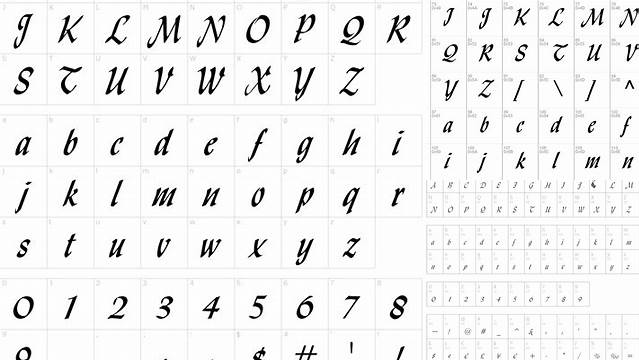
Hey guys! Let's dive into the amazing world of typography and explore a real gem: the Lydian Cursive CE font. This article is your ultimate guide to everything about this beautiful typeface, from a free download to how to use it, and all the cool details you might be wondering about. If you're looking for a font that blends elegance, readability, and a touch of personality, you're in the right place. Get ready to unleash your creativity with the Lydian Cursive CE font!
H2: The Beauty and Characteristics of Lydian Cursive CE
Now that you know where to grab your free Lydian Cursive CE font download, let's explore what makes this font so special. Lydian Cursive CE is all about elegant flow and graceful curves. The font has a handwritten feel, but it's still incredibly readable, making it perfect for a variety of design applications. The cursive style gives it a sense of sophistication and personality that can be hard to achieve with more basic fonts. You'll notice the distinctive letterforms, with their interconnected strokes and the gentle slant, which creates a natural, inviting look. This is a typeface that can add a touch of class to invitations, logos, headings, and more. One of the great things about the Lydian Cursive CE font is its versatility. It can be used in both formal and informal settings. It can also be paired with different styles of other fonts. For instance, pairing a bold, sans-serif font with the elegant Lydian Cursive CE in headlines can create a striking visual contrast. The font's flowing design is also ideal for body text in certain contexts, particularly when aiming for a more artistic or personalized touch. However, keep in mind that cursive fonts, including Lydian Cursive CE, can sometimes be a bit challenging for very long passages of text, depending on the design's use case. When choosing a font, consider how it will appear in different sizes and how it will integrate with the rest of your design. The Lydian Cursive CE font's elegant appearance can give your design projects a touch of sophistication and personality, setting them apart from the crowd.
H2: Lydian Cursive CE Font: Perfect Uses and Design Ideas
So, where does the Lydian Cursive CE font really shine? Let's explore some perfect use cases and design ideas for this awesome font. This typeface is a fantastic choice for wedding invitations and announcements, adding a touch of elegance and romance. Imagine your wedding invitations with the names and dates written in this graceful script – it's a classic and beautiful touch! It also works wonders for creating logos for brands that want to convey sophistication, luxury, or a personal touch. Think of boutique businesses, handmade crafts, or any brand that wants to project an image of refined taste. Lydian Cursive CE can also be used for headings and titles in brochures, flyers, and websites. It can instantly elevate the look of your content and grab the reader's attention. It is a fantastic choice for creating stylish packaging or labeling. Think about product labels for candles, soaps, or gourmet foods, where the cursive style can add a sense of artistry and charm. To create visually appealing designs, try experimenting with different colors and backgrounds. The font's elegance is enhanced when paired with complementary colors and textures. Also, combine the font with other fonts, such as a simple sans-serif font for body text and the Lydian Cursive CE for headings. This pairing balances the visual appeal and ensures readability. You could also consider using this font to design personalized gifts like custom mugs, t-shirts, and prints. The possibilities are endless when using the free Lydian Cursive CE font download!